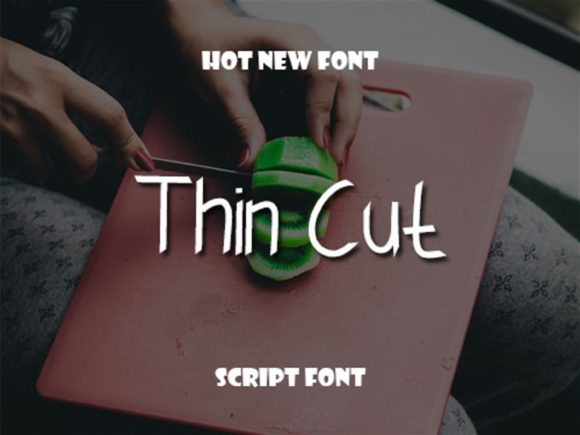
Lace up your creativity with Thin Cut, the captivating script font that's poised to turn your digital dreams into a typographic masterpiece!
Thin Cut's delicate strokes dance gracefully across the page, etching your words with an ethereal charm. Inspired by the flowing lines of calligraphy, this font exudes a timeless sophistication that's perfect for adding a touch of elegance to any project.
Imagine your blog posts adorned with Thin Cut's graceful curves, captivating your readers with every stroke. Its understated yet impactful presence will make your words leap off the screen, leaving a lasting impression on your audience.
With its versatility, Thin Cut effortlessly complements a wide range of designs. Whether you're crafting invitations, social media posts, or website banners, this font has the power to transform your creations into works of art. Its delicate touch elevates the ordinary, making it the perfect choice for those who crave a sophisticated touch.
Thin Cut is not just a font; it's a gateway to capturing the essence of your creativity. Its unique style empowers you to infuse your designs with personality and flair, leaving a lasting impact on all who encounter your creations.
Join the ranks of discerning designers who trust Thin Cut to add a touch of enchantment to their projects. Experience the joy of effortless elegance and watch your words blossom into a symphony of visual delight.